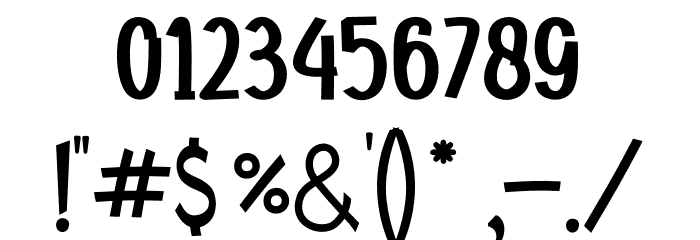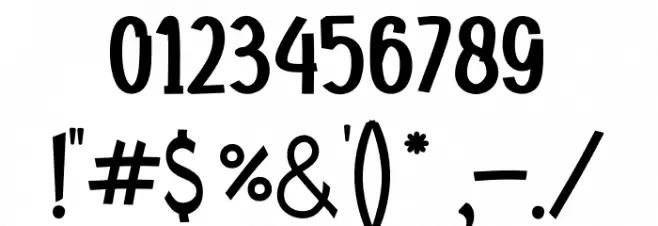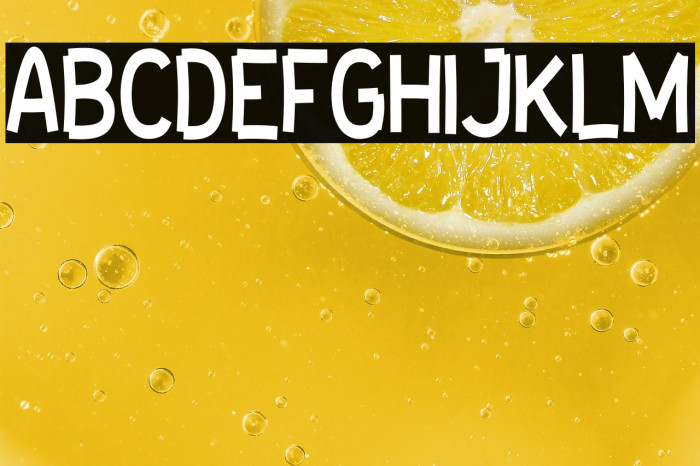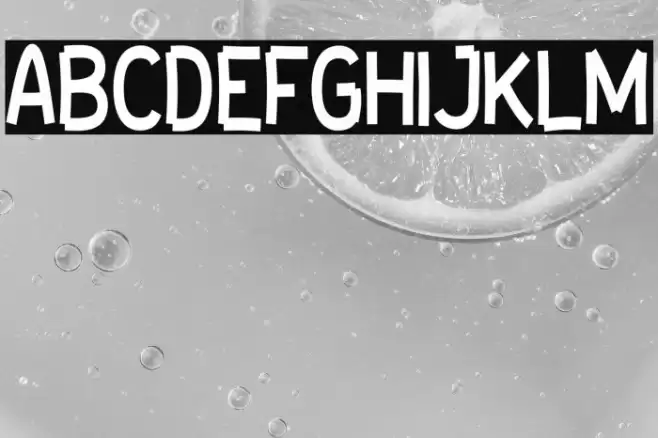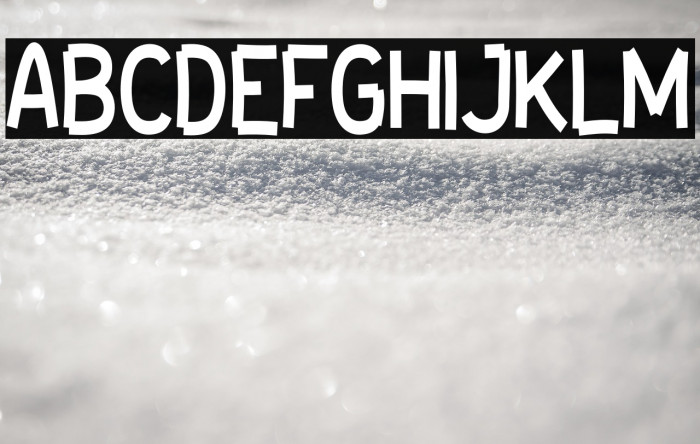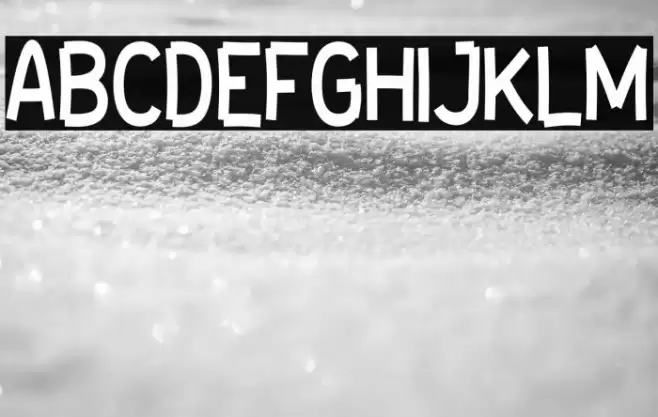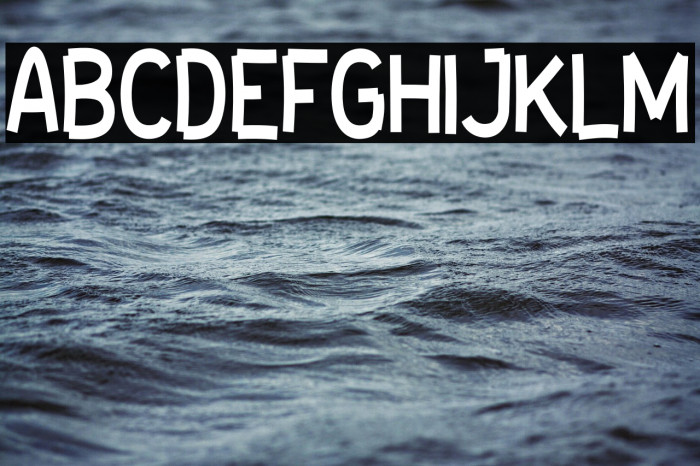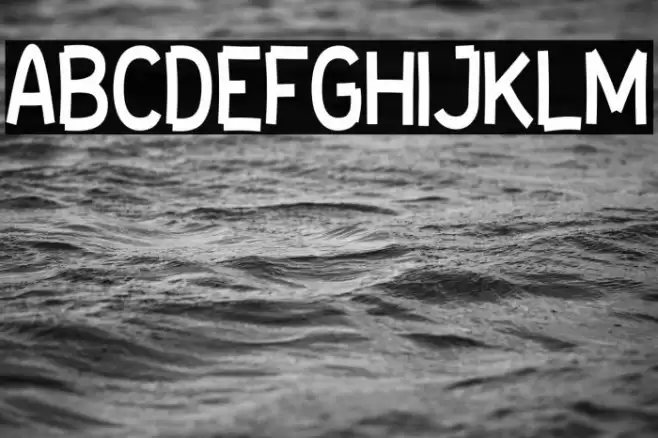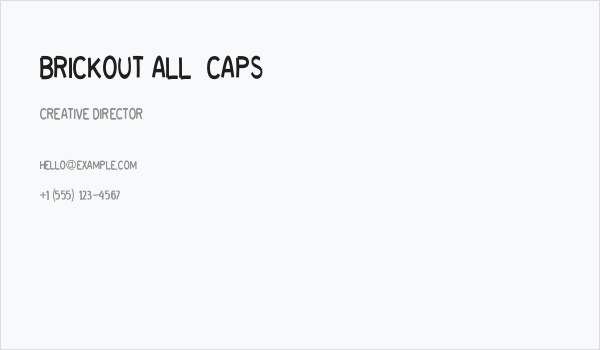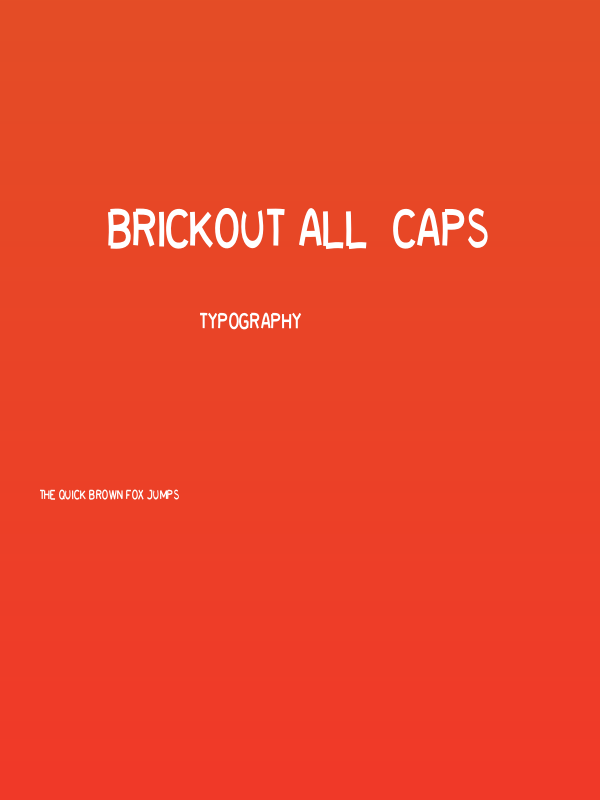
brickOUT all caps Font
brickOUT all caps Description
This font features bold, uppercase letters with a slightly irregular and playful style. The characters have a hand-drawn appearance, giving them a unique and informal look. The strokes are thick and consistent, creating a strong visual impact. The numbers and special characters follow the same bold and quirky design, making the font suitable for attention-grabbing headlines or creative projects. The overall style is modern with a touch of whimsy, making it versatile for various design needs.
| Overall Style | Modern, Playful |
| Proposed Projects | Ideal for posters, branding, children's books, and creative advertisements. |